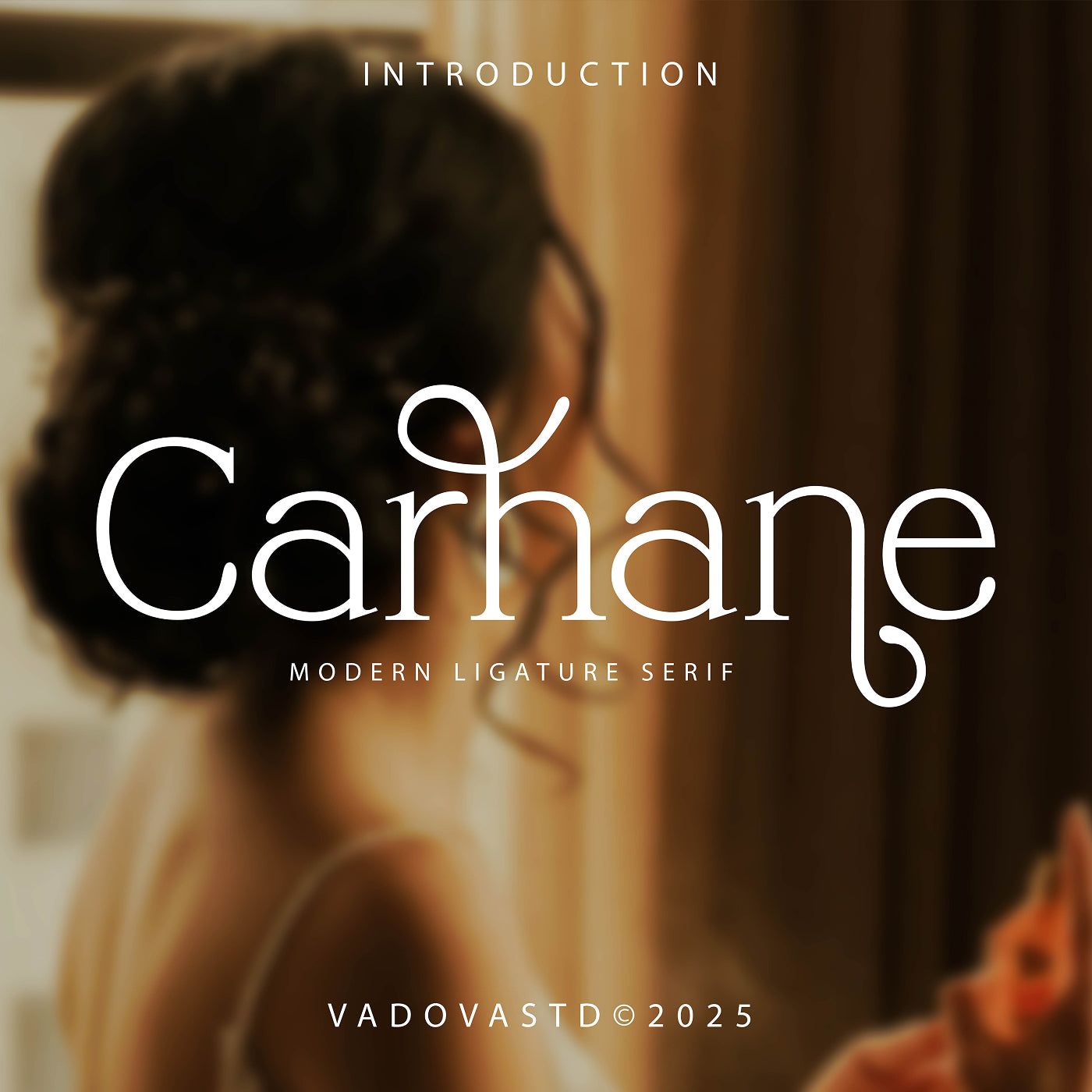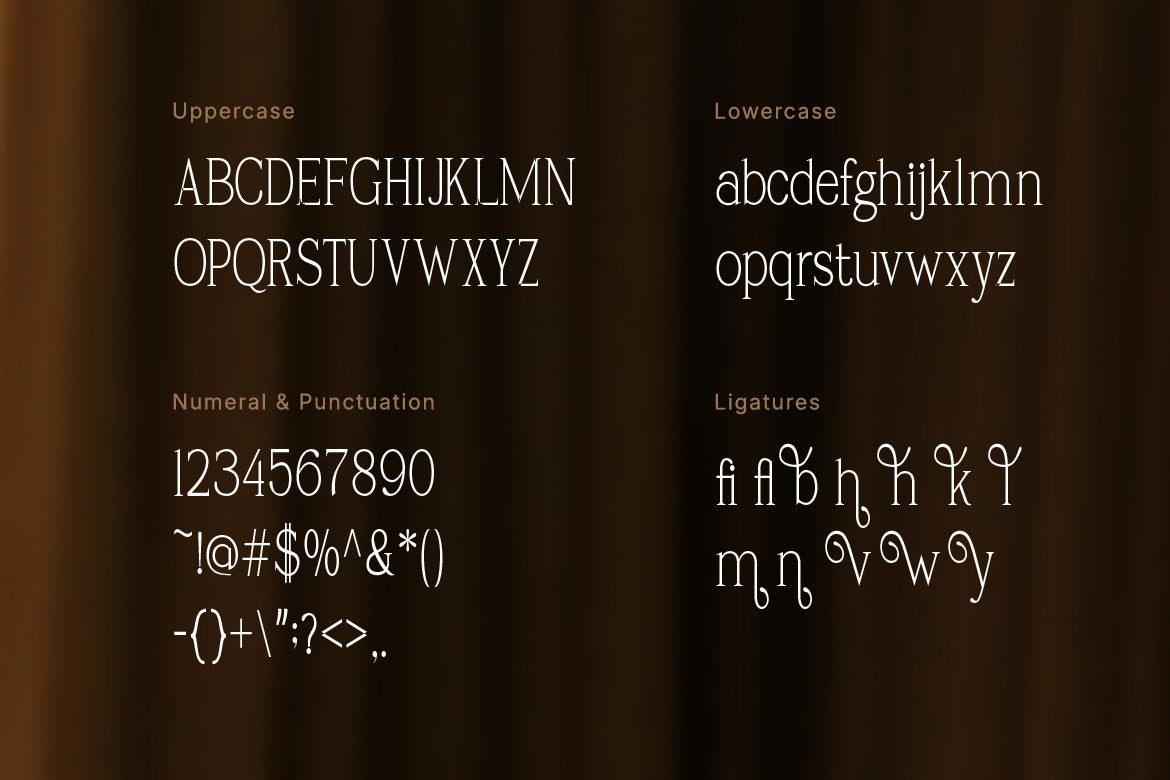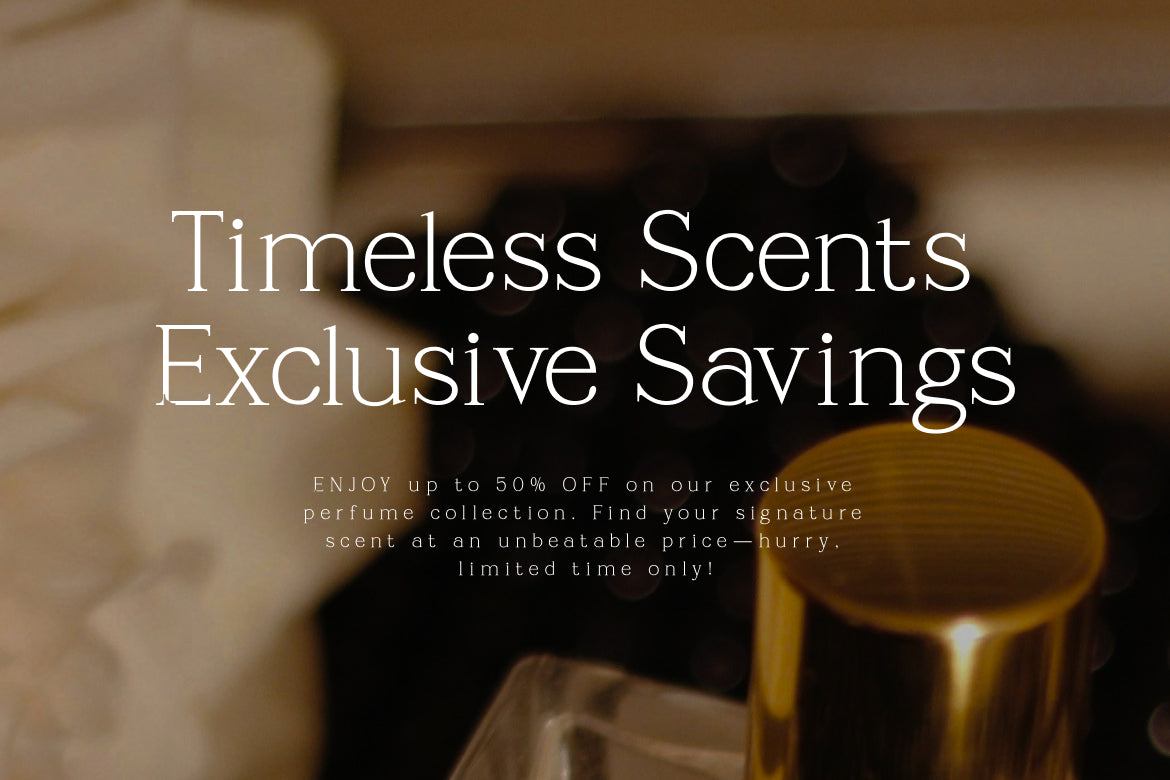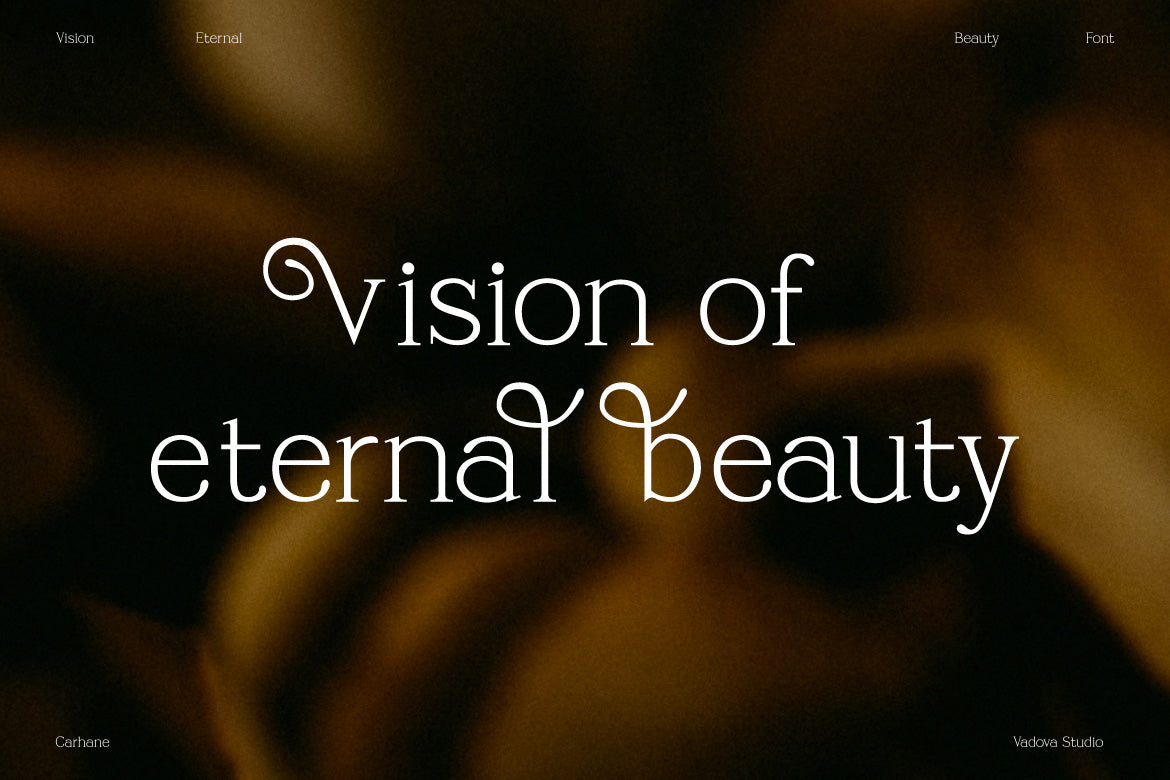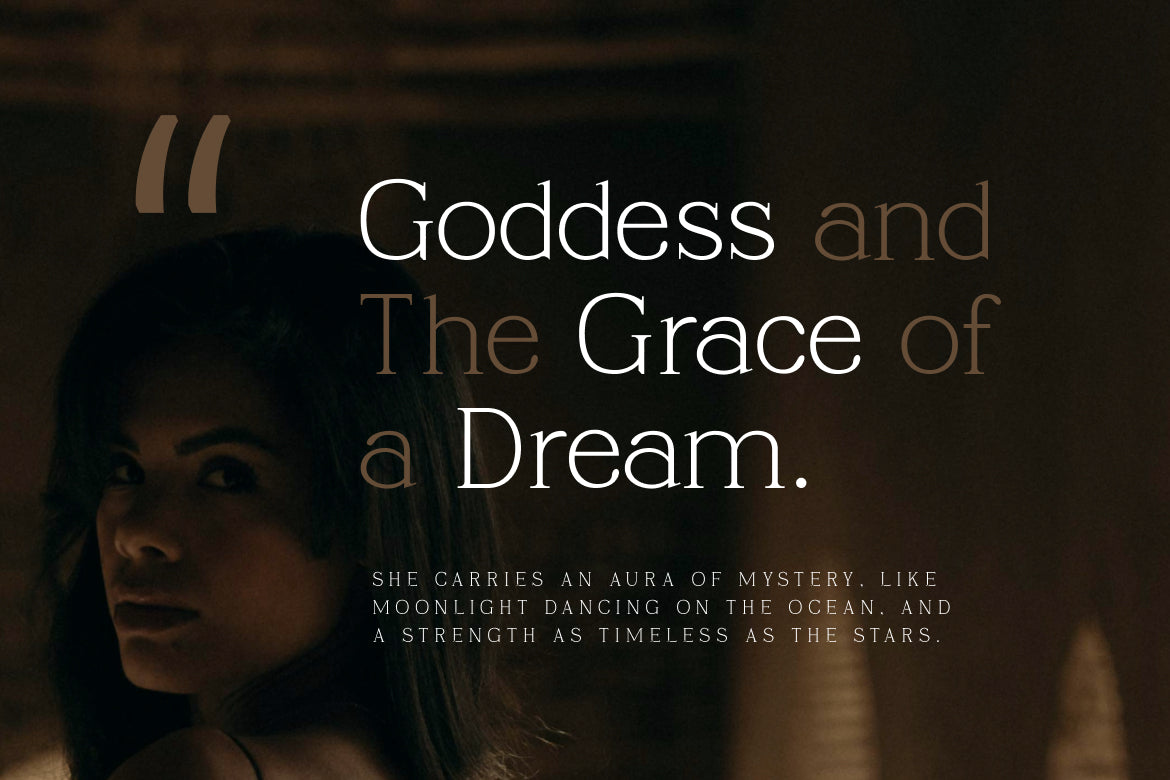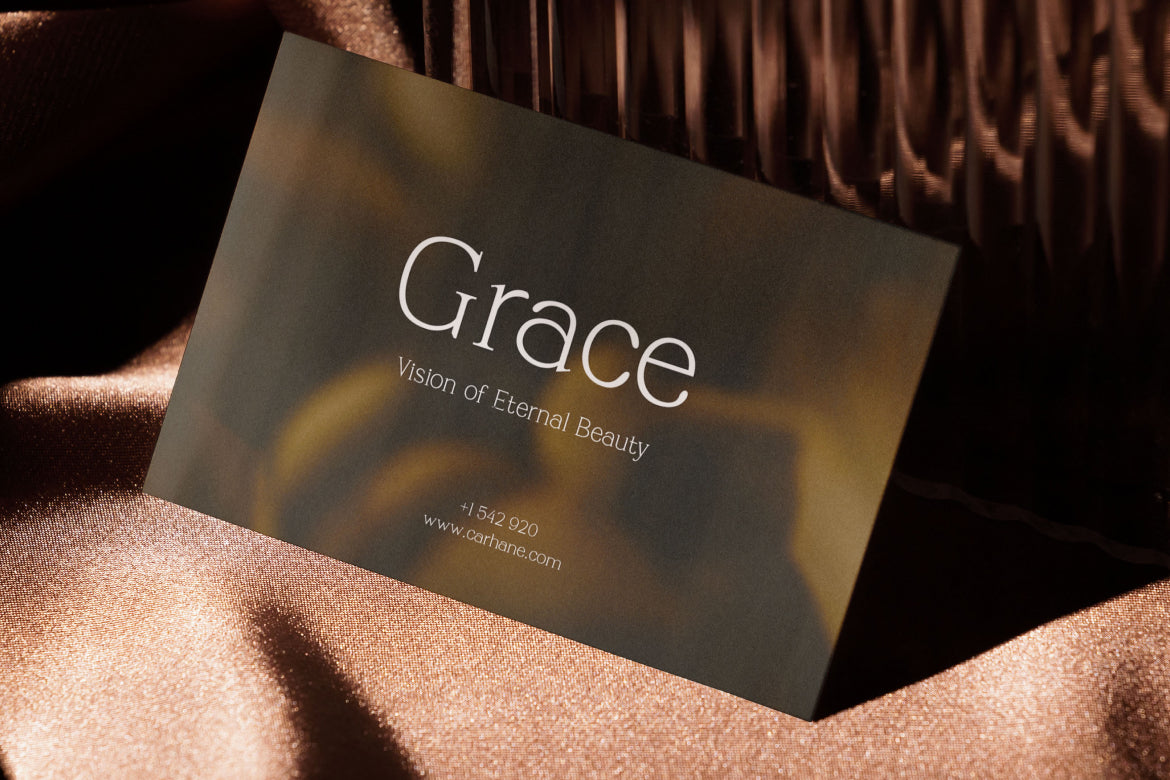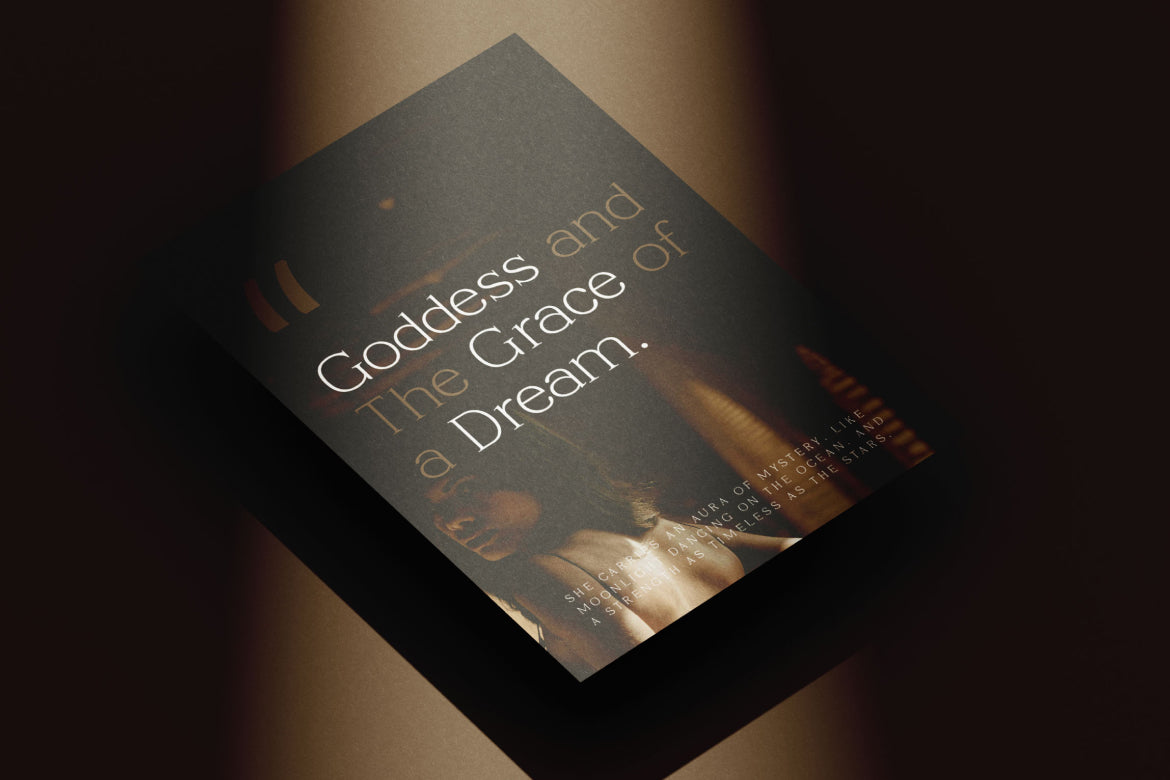
Carhane Modern Ligature Serif Font
Carhane presents a refined combination of elegant serif structure and artistic ligature details designed for sophisticated contemporary branding. The typeface features slim high-contrast strokes, graceful curves, and decorative alternates that create a luxurious editorial atmosphere with timeless visual appeal. Its stylish ligatures and elongated serif construction bring a premium aesthetic suitable for fashion-forward layouts, upscale product branding, and elegant typography compositions.
Ligature Support
Carhane is a modern serif font featuring high-contrast strokes, decorative alternates, and ligature support. It includes uppercase and lowercase characters, numerals, and punctuation, available in TTF, OTF, and WOFF formats.